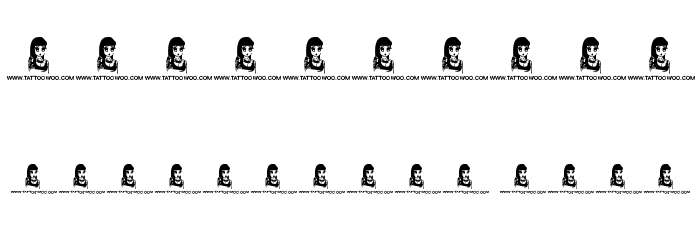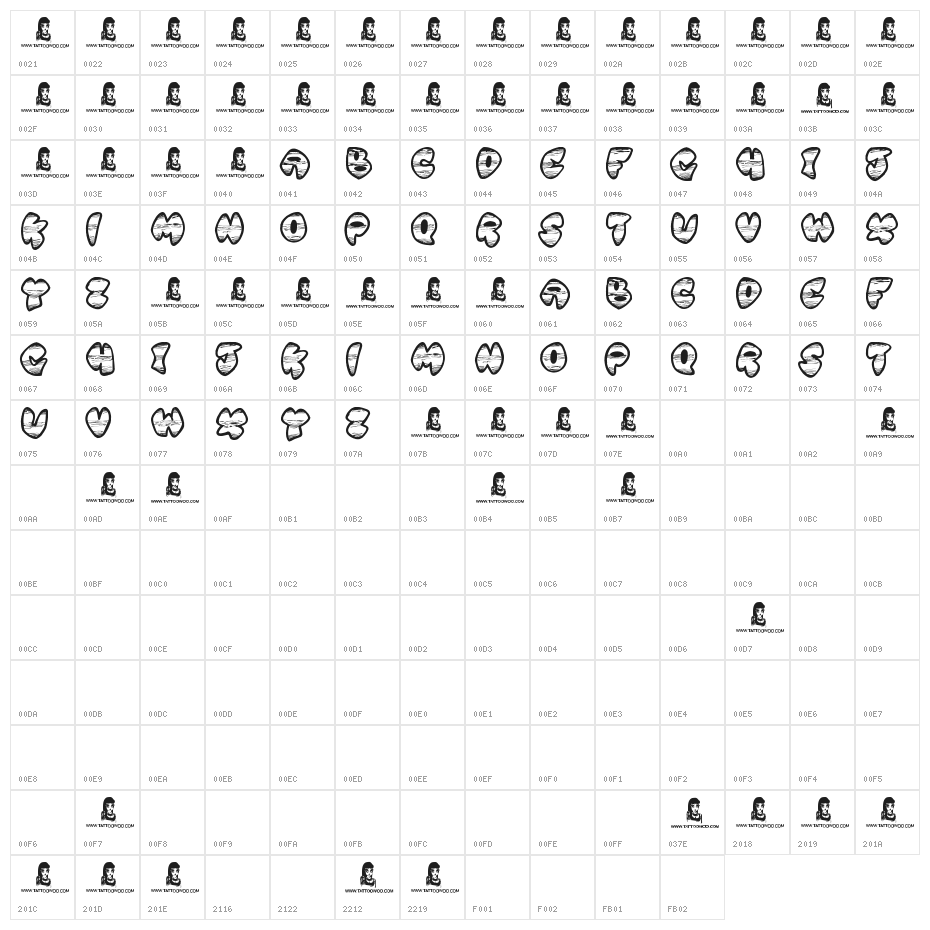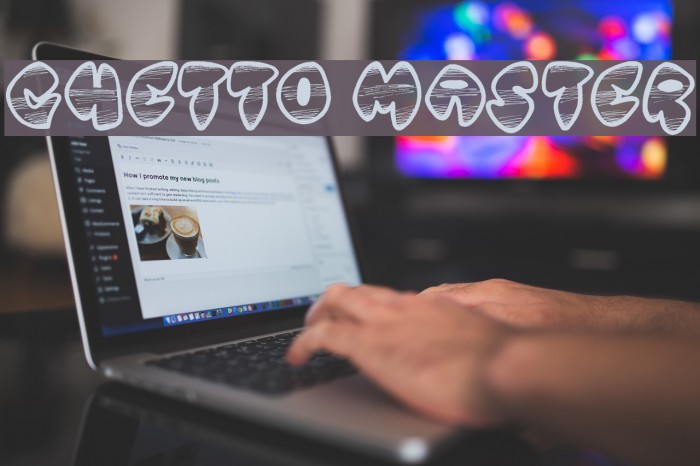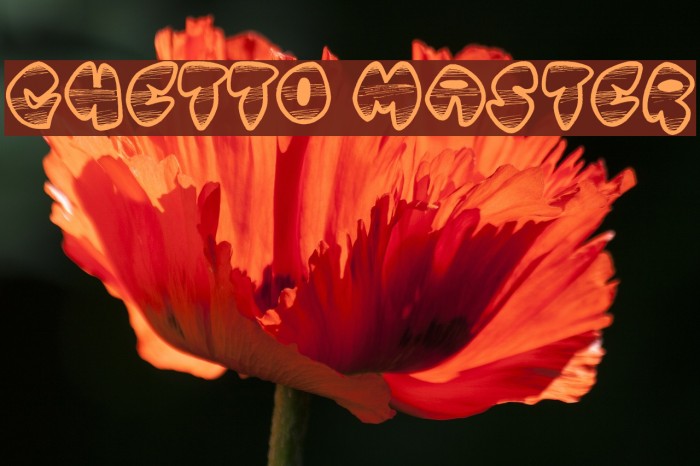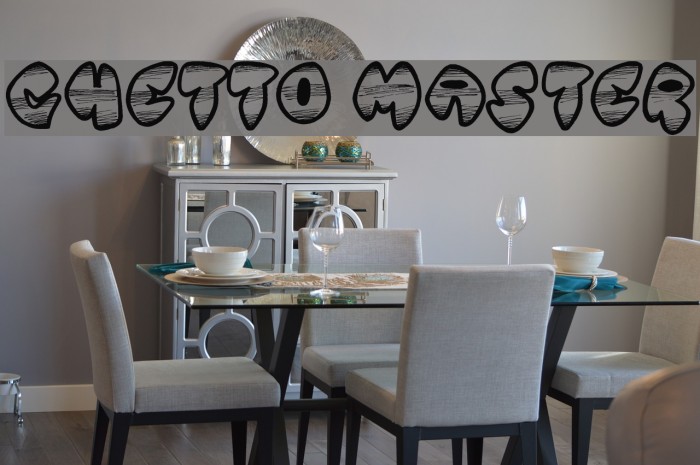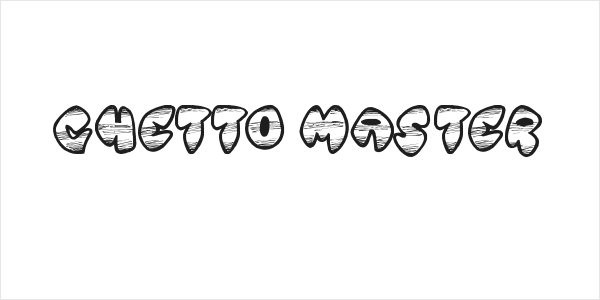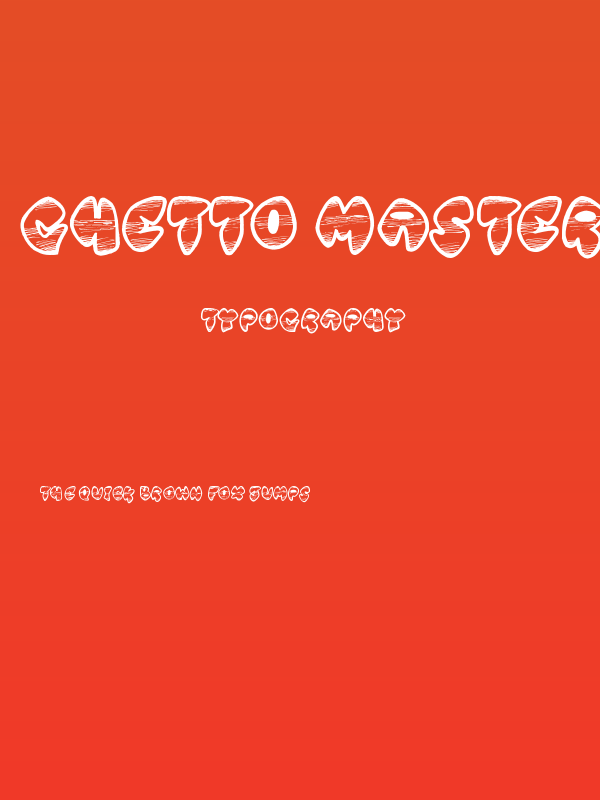
Ghetto Master Font
Ghetto Master Description
This font features a bold, graffiti-inspired style with a hand-drawn appearance. Each character is outlined with a thick black border and filled with a textured, sketch-like pattern that adds depth and visual interest. The letters are rounded and slightly irregular, giving them a playful and dynamic feel. The font's unique aesthetic is reminiscent of urban street art, making it stand out with its artistic flair. The uppercase and lowercase letters maintain a consistent style, while the numbers and special characters complement the overall design. This font is ideal for projects that require a bold, creative touch.
| Overall Style | Urban, Artistic, Playful |
| Proposed Projects | Ideal for street art designs, urban-themed posters, music album covers, and creative branding projects. |